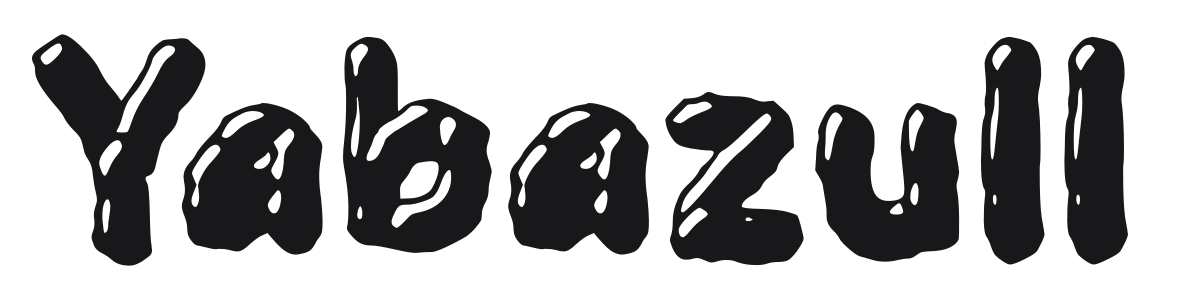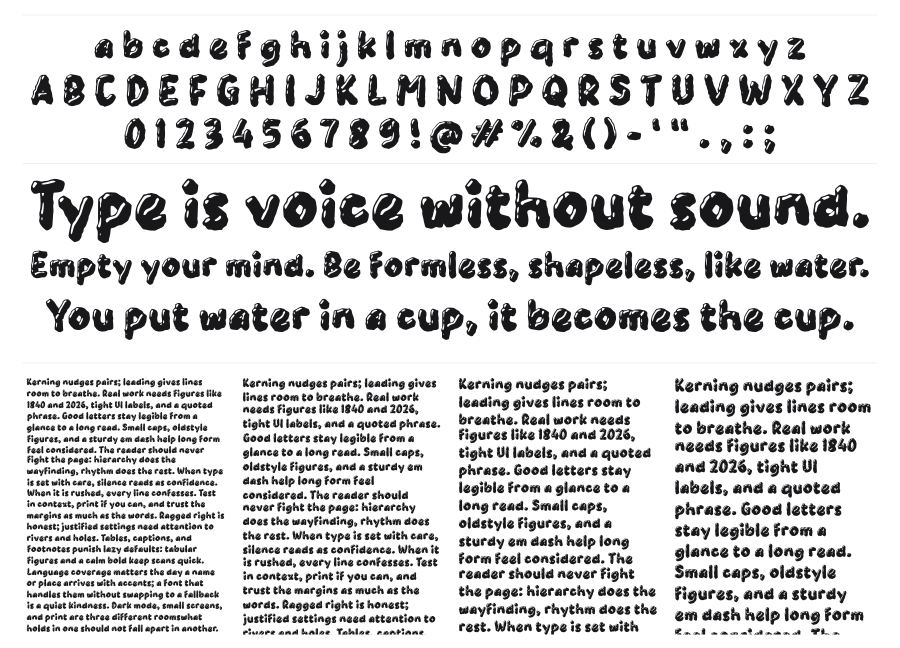
Yabazull
Yabazull is a bold, blob-style display font where every character looks like it was inflated and left to melt. The lumpy, dimpled surfaces give it a gooey texture that sits somewhere between slime horror and playful street art. Strong at large sizes wherever a heavy, organic personality is needed.